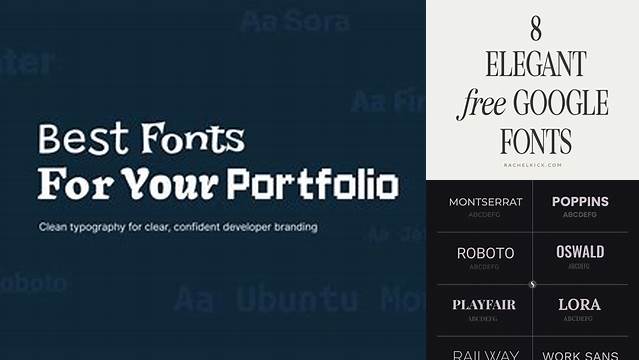
Boost Your Portfolio: Google Fonts For Stunning Websites
Hey guys! So, you're building a portfolio website, huh? Awesome! That means you're about to showcase your amazing work to the world. And guess what? One of the first things people notice (besides your killer projects, of course) is the look and feel of your website. And that, my friends, often boils down to one crucial element: fonts! Choosing the right fonts can make or break your online presence. They can communicate your brand's personality, make your content readable, and even add a touch of artistry. That's where Google Fonts comes in, offering a massive library of free, open-source fonts that are super easy to use on your portfolio website. Forget those boring default fonts! Let's dive into how you can use Google Fonts to create a portfolio website that truly wows your visitors. We'll explore everything from choosing the perfect font pairings to implementing them seamlessly on your site. Ready to level up your portfolio game? Let's go!
1. Why Google Fonts is Your Best Friend for Portfolio Websites
Benefits of Using Google Fonts for Portfolio Websites
2. Choosing the Right Fonts: Matching Your Brand and Content
Okay, guys, choosing the right fonts is more important than you might think. Your fonts are a visual representation of your brand and can really influence how people perceive your work. It's like choosing the right clothes – you want something that fits and communicates your style, right? When it comes to your portfolio website, the fonts you choose should align with your brand's personality, the type of work you showcase, and your target audience. Think about the message you want to convey. Are you a minimalist designer? Then, you might opt for a clean, modern sans-serif font. Are you a photographer with a vintage aesthetic? A serif font could be a better fit. Or maybe, you are a fun and quirky animator? A playful script font might be perfect. Before you start browsing Google Fonts, think about the content on your website. Is it image-heavy? Text-heavy? Do you have long-form articles or short descriptions? This will influence your font choices. If you've got lots of text, choose fonts that are easy to read and work well at various sizes. If your website is more visual, you can get a bit more creative with your font choices. When selecting fonts, pair them thoughtfully. You can choose to mix sans-serif fonts for headings with serif fonts for body text or experiment with different weights and styles of the same font family. Just make sure the fonts complement each other, not clash. Readability is king. No matter how cool a font looks, it's useless if no one can read it. Make sure your fonts are legible at different sizes and on different devices. Do a test run. Preview your fonts on your website to ensure they look good on your projects, descriptions, and any other text elements. Also, consider the emotional impact. Do you want your website to feel modern, traditional, playful, or serious? Fonts can evoke emotions, so choose fonts that resonate with your brand's overall tone. Choosing the right fonts might feel a little overwhelming at first, but with a bit of thought and planning, you can find the perfect fonts to elevate your portfolio website and make a lasting impression.
Font Pairing and Typography Best Practices for Portfolio Websites
When it comes to font pairings, think of it as creating a balanced and harmonious duo. You want fonts that complement each other and work together in a visually pleasing way. A popular approach is to pair a serif font (like Times New Roman, or Open Sans) for the main body text, known for its readability, with a sans-serif font (like Arial, or Montserrat) for headings and titles, which often adds a modern touch. This combination creates a clear visual hierarchy, making it easier for visitors to navigate your website. Another key practice is creating a visual hierarchy by using different font sizes and weights. Use larger, bolder fonts for headings and subheadings to grab attention, and smaller, lighter fonts for the body text. This will help readers skim and absorb information more effectively. Avoid using too many fonts. While it may seem tempting to experiment with several different styles, using too many fonts can make your website look messy and unprofessional. Stick to two or three fonts maximum to maintain a cohesive look. Legibility is essential. Choose fonts that are easy to read, especially for the body text. Consider the size, spacing, and contrast of your text to ensure it’s readable on all devices. Make sure your website is responsive. Your fonts should look great on all devices, whether it's a desktop, tablet, or mobile phone. Test your website on different screen sizes to ensure your text is clear and readable. Consider the emotional impact. Do you want your portfolio to feel modern, traditional, playful, or serious? Fonts can evoke emotions, so choose fonts that resonate with your brand's overall tone. You can also play with font weights and styles. Use variations like bold, italic, or different weights to create visual interest. Just make sure to use them sparingly, so they don't distract from your content. Use a grid system for your website's layout. This will help you align your text and other elements in a consistent and organized manner. Test different font pairings before implementing them on your live website. Many websites offer tools and previews so you can see how different fonts look together. Remember, the goal is to create a visually appealing website that's easy to read and navigate. Thoughtful font pairings and typography practices are essential for achieving this goal.
Aligning Fonts with Brand Identity and Target Audience
Alright, let’s dive into how to choose fonts that align with your brand identity and your target audience. You should think of your fonts as a key element of your brand's personality, communicating your values, style, and the overall experience you want to create for your website visitors. If your brand is sleek, modern, and innovative, you might lean towards a sans-serif font like Open Sans or Montserrat. These fonts convey a sense of simplicity, professionalism, and contemporary design. If your brand has a classic, elegant, and sophisticated feel, a serif font like Playfair Display or Lora might be a better choice. These fonts add a touch of traditional charm and sophistication. For a more playful and informal brand, you could use a script or display font for headings, coupled with a clean, readable body font. Script fonts can add a touch of personality. Now, consider your target audience. Who are you trying to reach? What are their preferences and expectations? If your audience is mainly composed of industry professionals, a more formal and professional font choice is advisable. If you are targeting a younger, more creative audience, you can get away with a more experimental and expressive font choice. Make sure your fonts are readable. This is extremely crucial. Whatever font you choose, ensure the text is easily readable on all devices and screen sizes. A beautiful font that’s difficult to read will only frustrate visitors and diminish your website's value. Create a visual hierarchy. Use different font sizes, weights, and styles (bold, italic) to organize and present your content clearly. This helps guide your audience through your portfolio website. Test your font choices. Before implementing your fonts, test them thoroughly across different devices and browsers. Ensure that they render well and create the desired look and feel. Think about the overall aesthetics of your website. Your fonts should work seamlessly with the other design elements, such as colors, images, and layout, to create a consistent and cohesive brand experience. When choosing fonts, remember that your choices are an important representation of your brand's identity and values. By carefully aligning your fonts with your brand, your content, and your target audience, you'll be able to create a portfolio website that looks great and resonates with your audience.
3. Top Google Fonts for Portfolio Websites: Examples and Recommendations
Alright, time to get specific! Let's explore some of the best Google Fonts that are perfect for portfolio websites, along with some examples to get your creative juices flowing. For a clean, modern look, you can't go wrong with Open Sans. It's incredibly versatile and works well for both headings and body text. It's also super easy to read on screens, which is a big win. Another excellent choice is Montserrat. This font is sleek, geometric, and gives a contemporary feel. It's a great option for those who want a bold and impactful website design. If you're looking for something a bit more elegant, Playfair Display is a great serif option. This font has beautiful, high-contrast letterforms that add a touch of sophistication to your portfolio. It's perfect for headings and short text snippets. For body text, you can pair it with a clean sans-serif like Open Sans. Another solid choice is Roboto. It's a versatile font that's both modern and readable. It works great for headings and body text, and it's available in a variety of weights and styles. This makes it super flexible for designing different elements of your website. If you are going for something a bit more unique, check out Lato. It's a friendly and approachable sans-serif font that adds a touch of personality to your website. It's great for both headings and body text. And if you are looking for a classic and timeless serif font, Lora is a great choice. It has a beautiful and balanced design that is perfect for body text. Poppins is a popular choice for portfolio sites. It has a geometric design and is known for its clarity. It is perfect for both headings and body text. Remember, these are just a few suggestions, and the best font for your website will depend on your personal style and the type of work you are showcasing. Don't be afraid to experiment, compare, and see what feels right for your portfolio.
Popular Google Fonts Combinations for Portfolio Websites
Let’s discuss some popular combinations that can help you create a visually appealing portfolio website. Open Sans combined with Roboto is a classic pairing. Open Sans is great for the body text due to its readability, and Roboto adds a modern touch for headings. This combination provides a clean and professional look, suitable for many portfolios. For a touch of elegance, consider Playfair Display paired with Open Sans. Playfair Display, a serif font, is excellent for headings, adding sophistication, while Open Sans keeps the body text easy to read and modern. This combination works well for portfolios aiming for a more refined aesthetic. Another popular choice is Montserrat paired with Lato. Montserrat, with its geometric design, brings a bold and contemporary feel to headings. Lato, a friendly and approachable sans-serif, provides a comfortable reading experience for the body text. This pairing is excellent for creative and design-focused portfolios. Poppins with Roboto offers a reliable, modern look. Both fonts are clear and versatile, making them ideal for a wide range of content. This pairing is popular for its simplicity and readability. For a balance of classic and modern, consider Lora with Open Sans. Lora, a well-balanced serif font, adds warmth and a classic feel to body text. Paired with Open Sans, it offers a contrast that enhances visual appeal. Remember, when choosing font combinations, you should consider the overall mood and message you want to communicate with your portfolio. Ensure the fonts complement each other, with good contrast for headings and body text, and are readable across all devices. Experiment with these combinations to see which best reflects your style and your work. Your selection of fonts can significantly enhance your portfolio website, so choosing wisely will pay off.
4. Integrating Google Fonts into Your Portfolio Website: Step-by-Step Guide
Okay, time to get technical, but don't worry, it's easier than you think. Let's walk through the steps of integrating Google Fonts into your portfolio website. First, you'll need to go to the Google Fonts website (fonts.google.com) and browse their vast library. Find the fonts you love and want to use. You'll see a plus sign icon next to each font. Click that icon to add it to your selection. This will open a panel at the bottom of the screen showing your selected fonts. Once you've selected all the fonts you want, click the